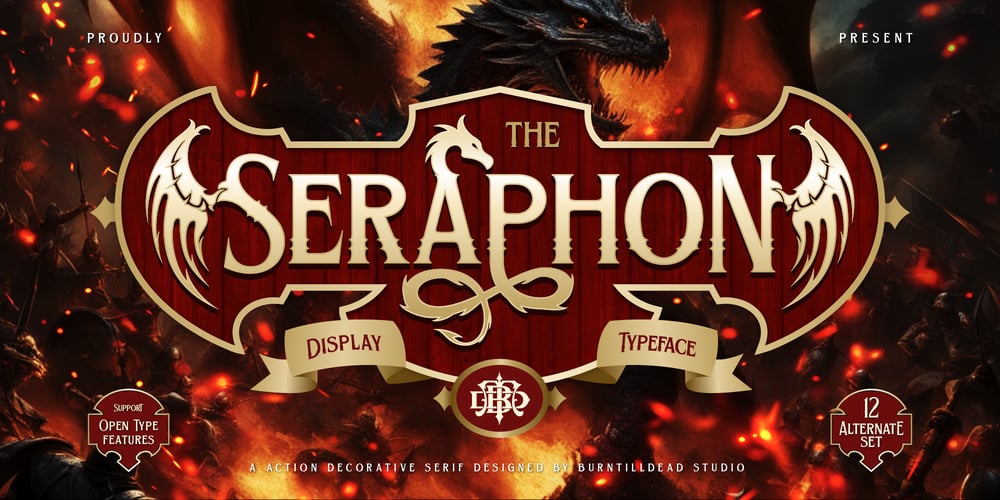
BTD Seraphon Typeface Font Family was designed by Eric Kurniawan and published by Burntilldead. BTD Seraphon Typeface contains 1 styles and family package options. Be the dragon master with “Seraphon”! Inspired by the ferocity, valor and awe of the dragons. Each letter is carved with amazing and astonishing detail, reflecting the majesty and power of mythical creatures as well as the bravery. With sharp lines and a majestic design, this font gives text a magical touch. Also the alternate highly detailed with dragon parts on each letter. Perfect for game titles, movie poster titles, fantasy novel cover and other design that require with dragon themes. Let each letter of this font tell a story about the dragon and find strength and courage in every character!Features: Seraphon A-Z set Numbers Punctuation Alternates (more than 10 alternate) Ligature Multilingual